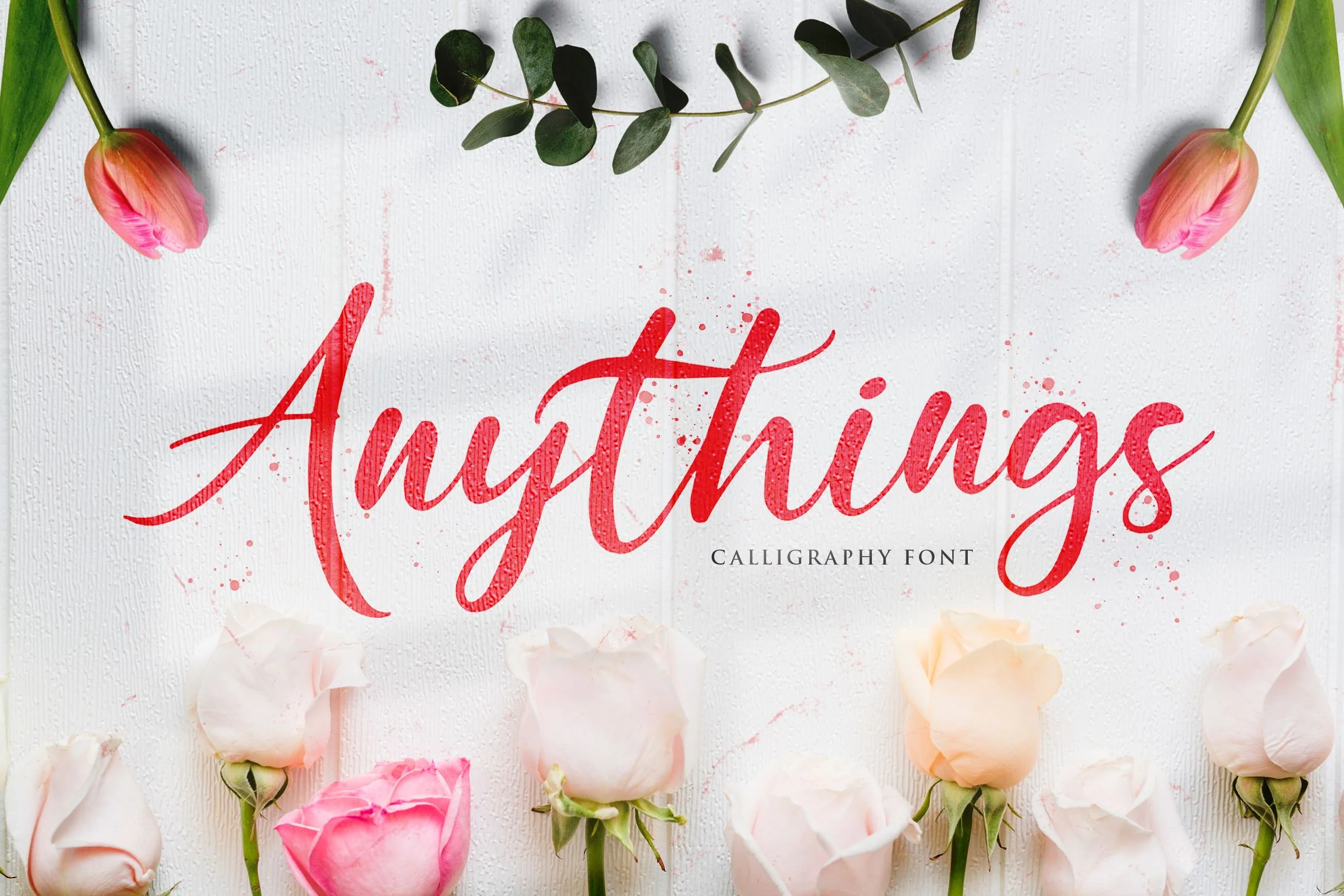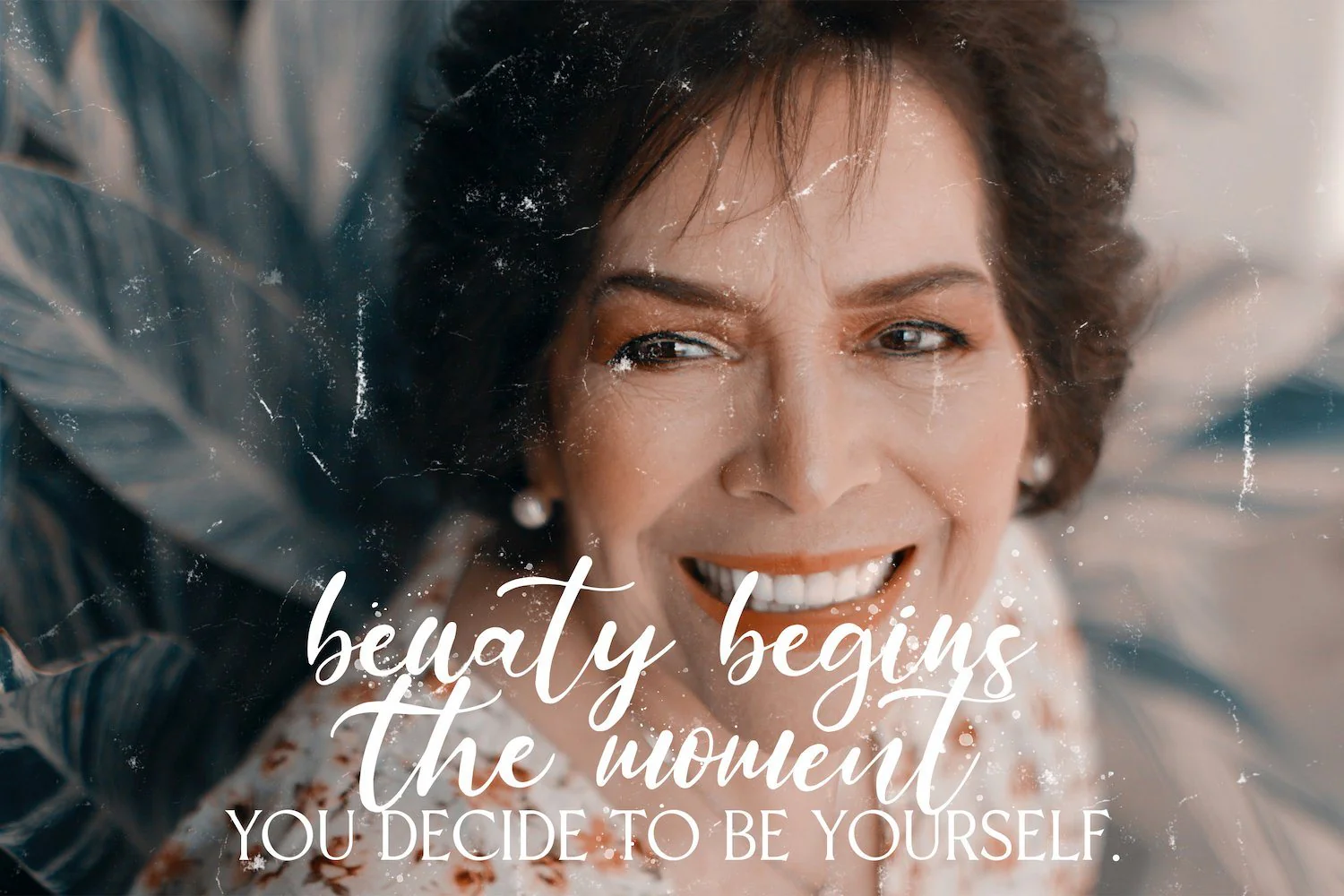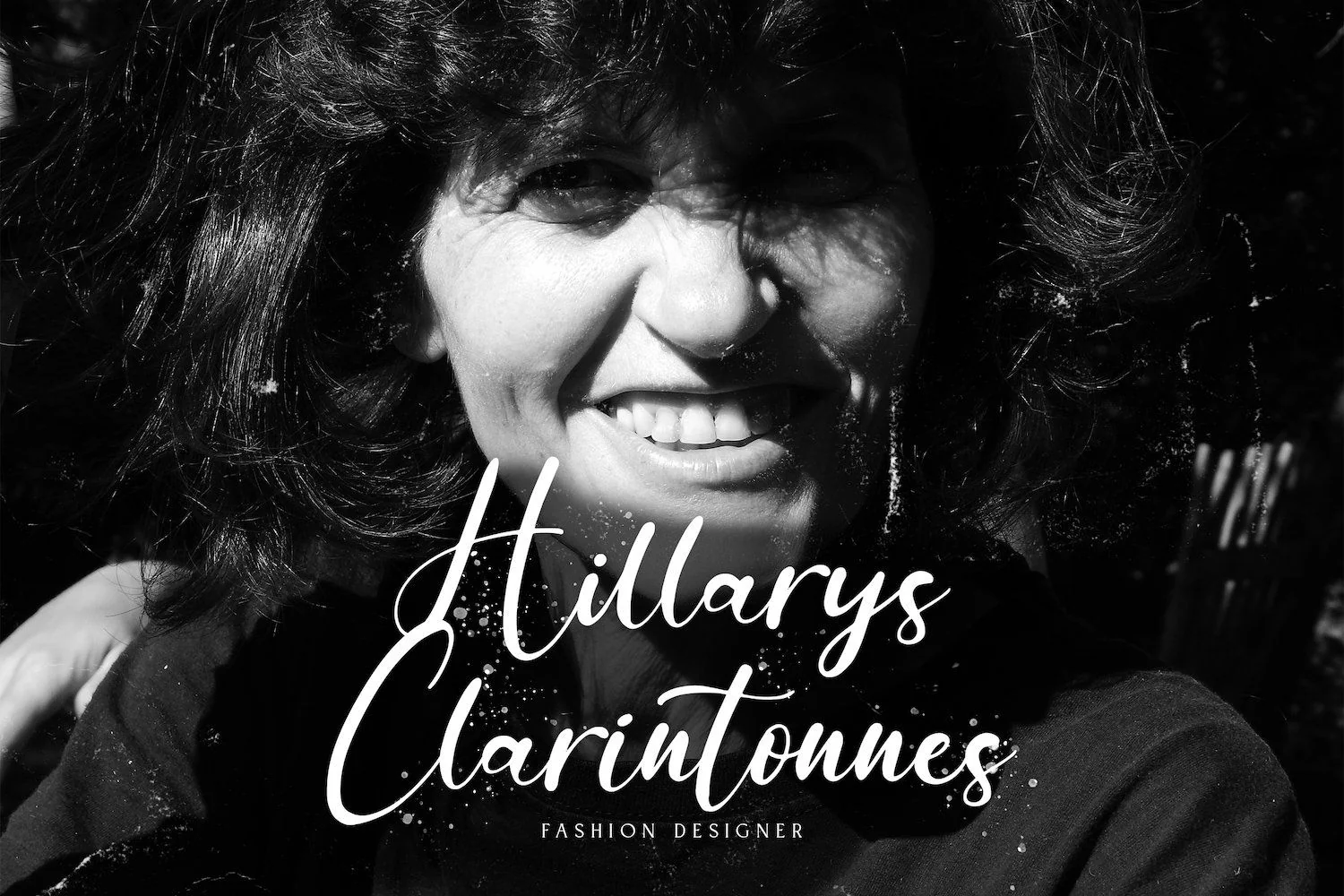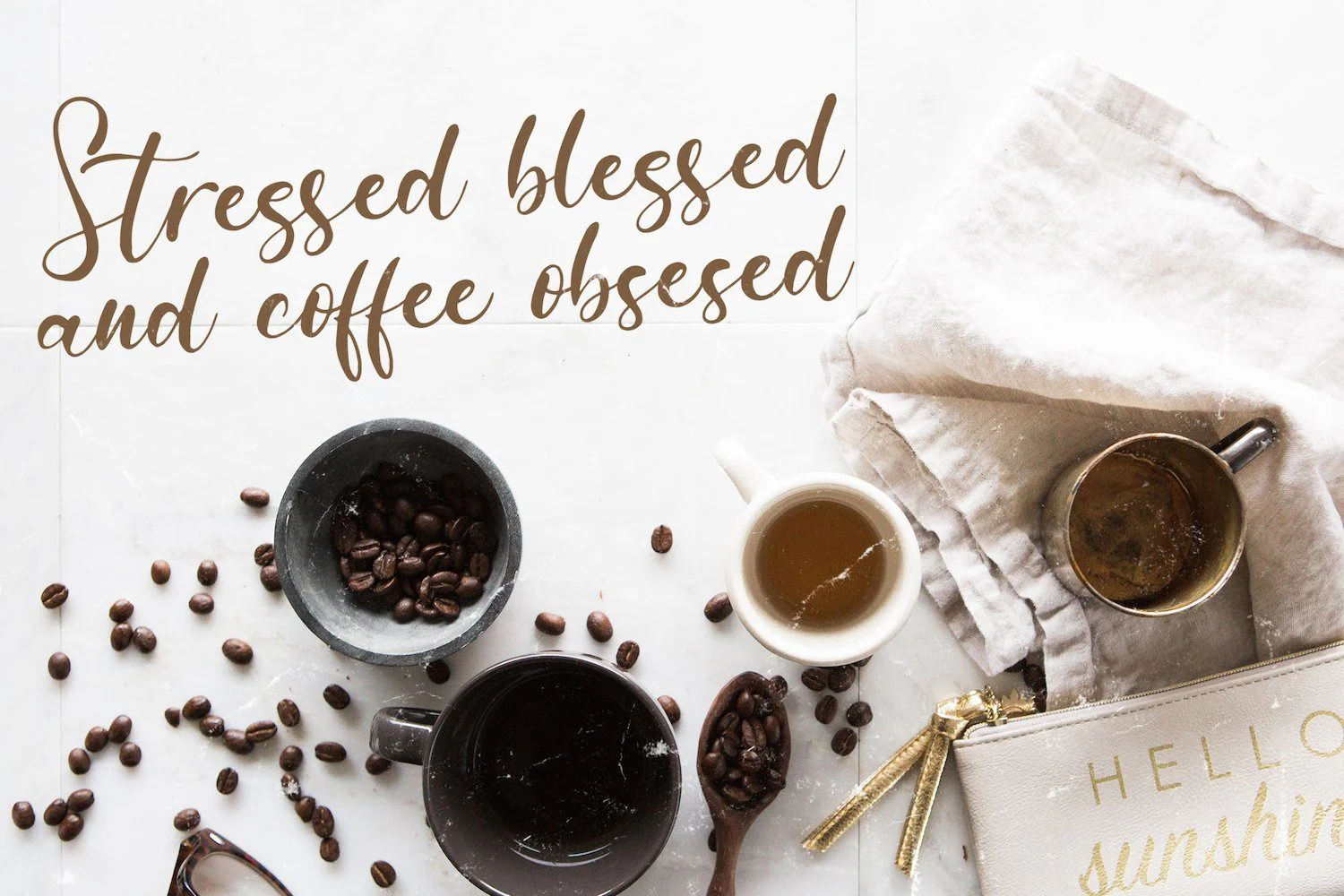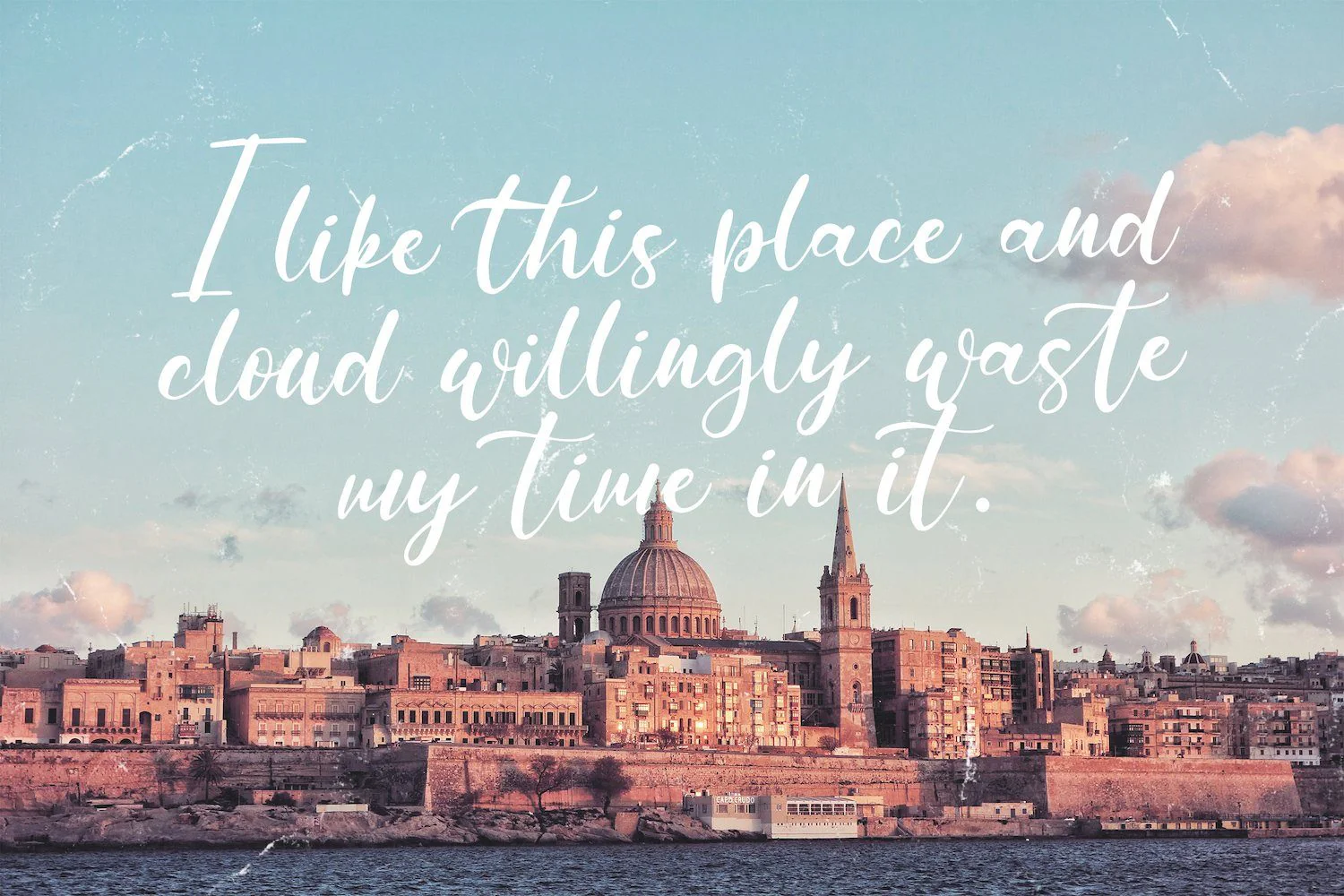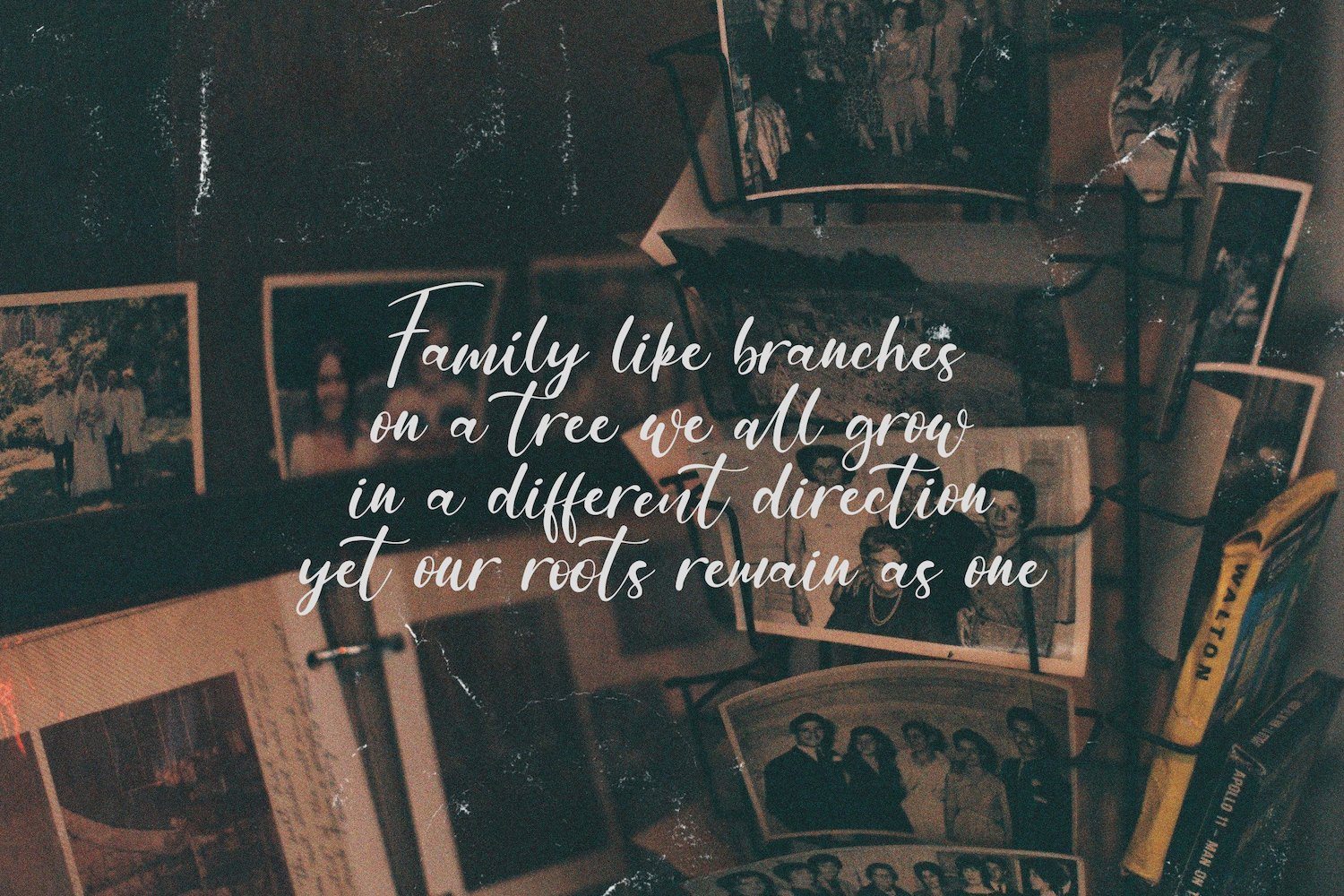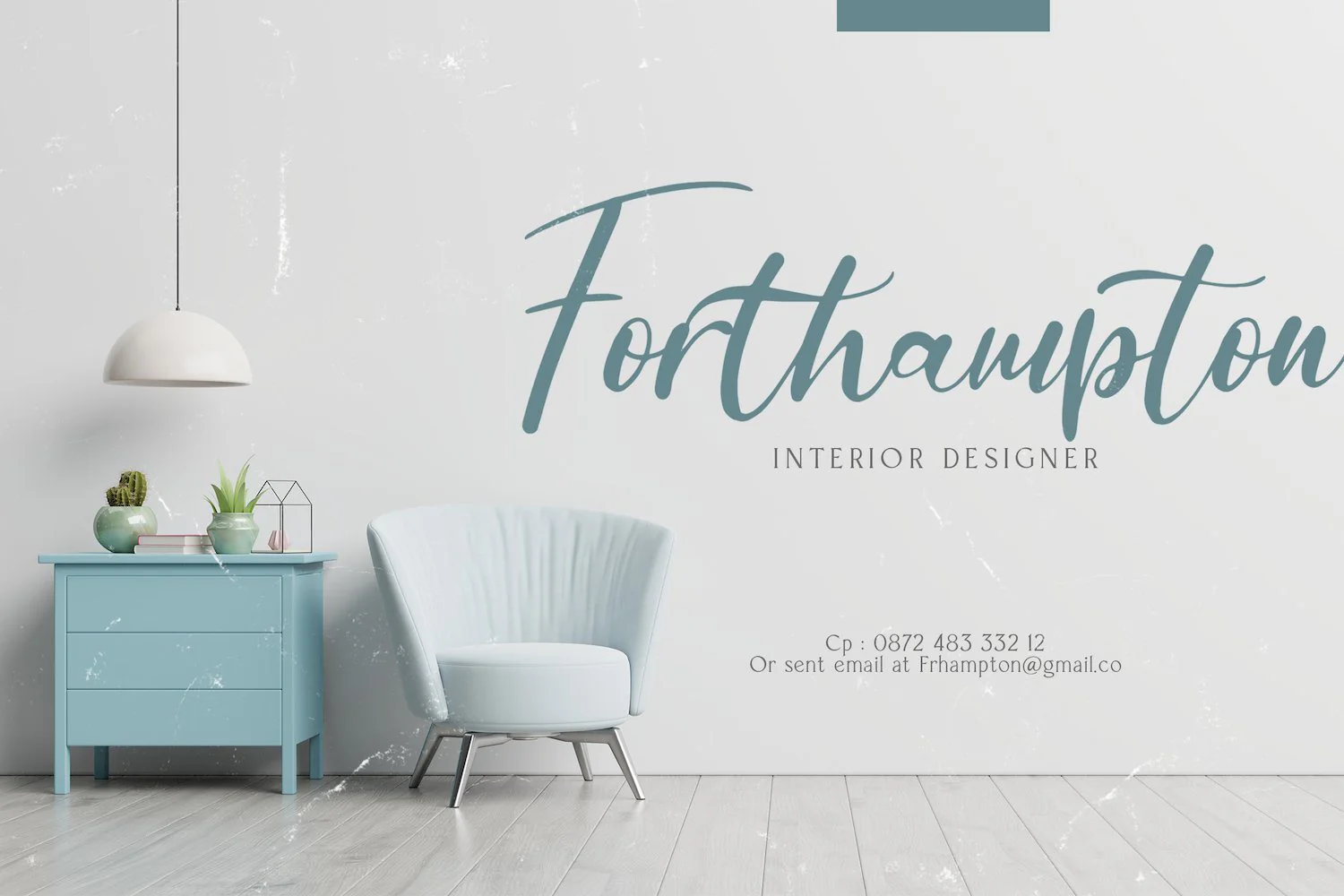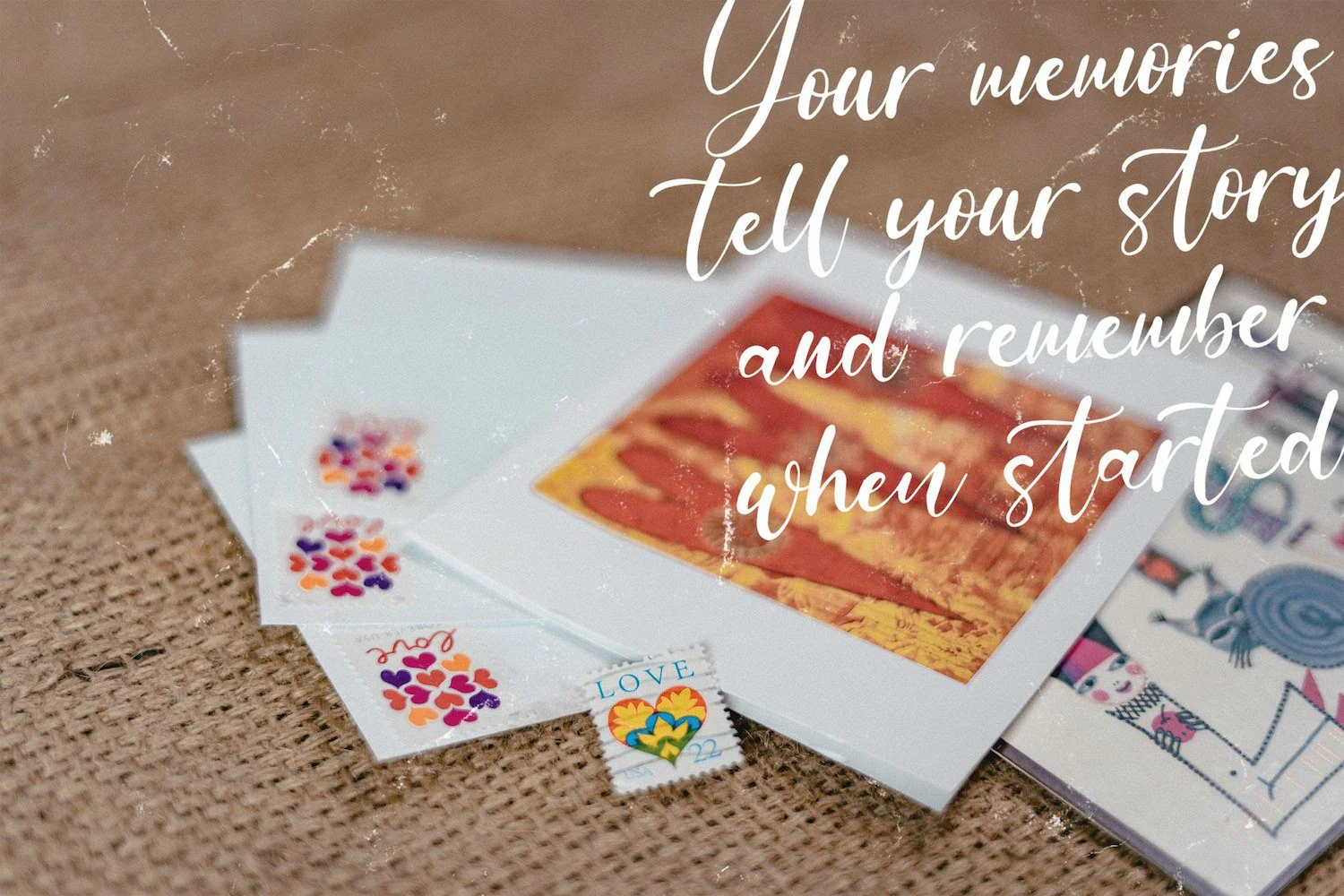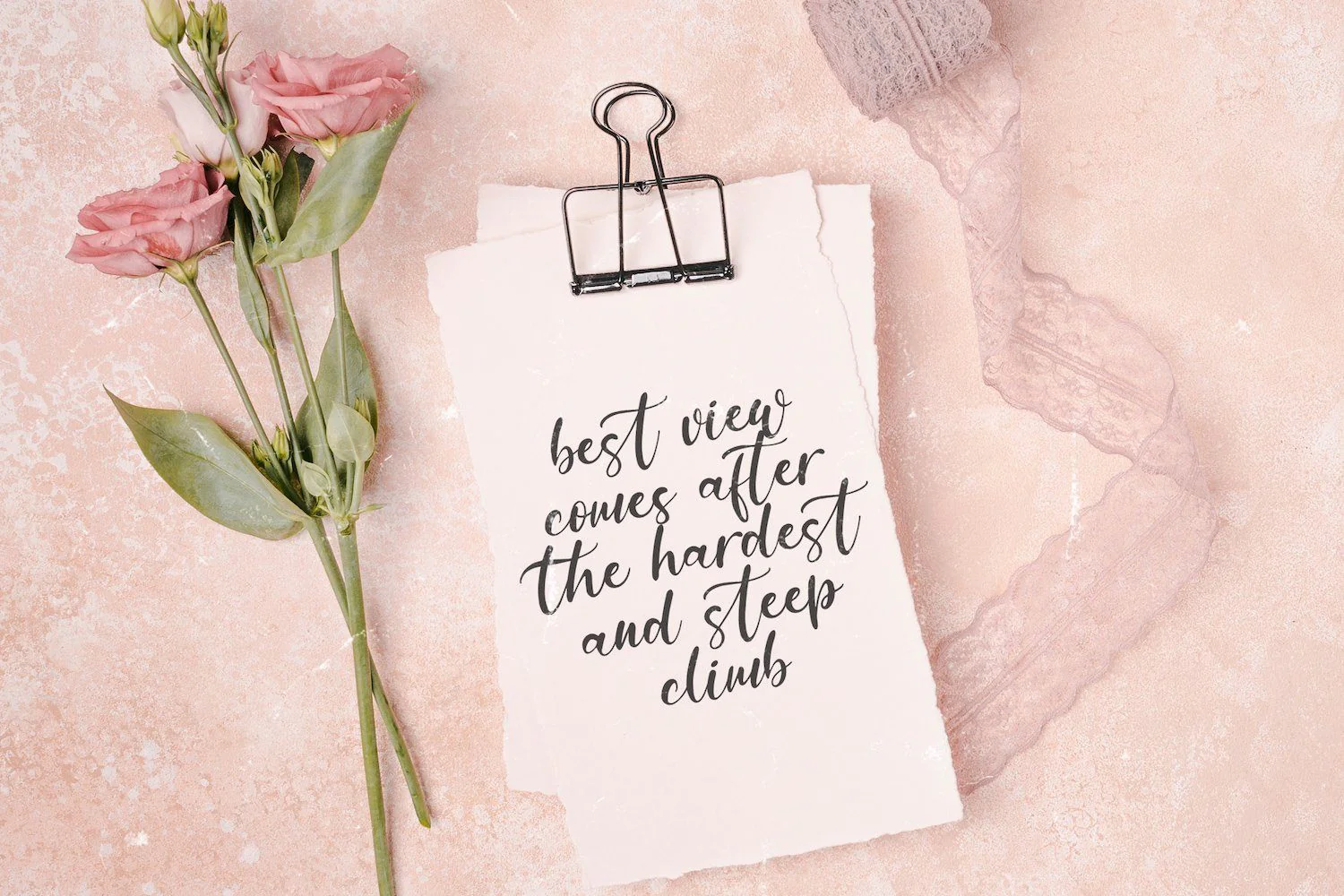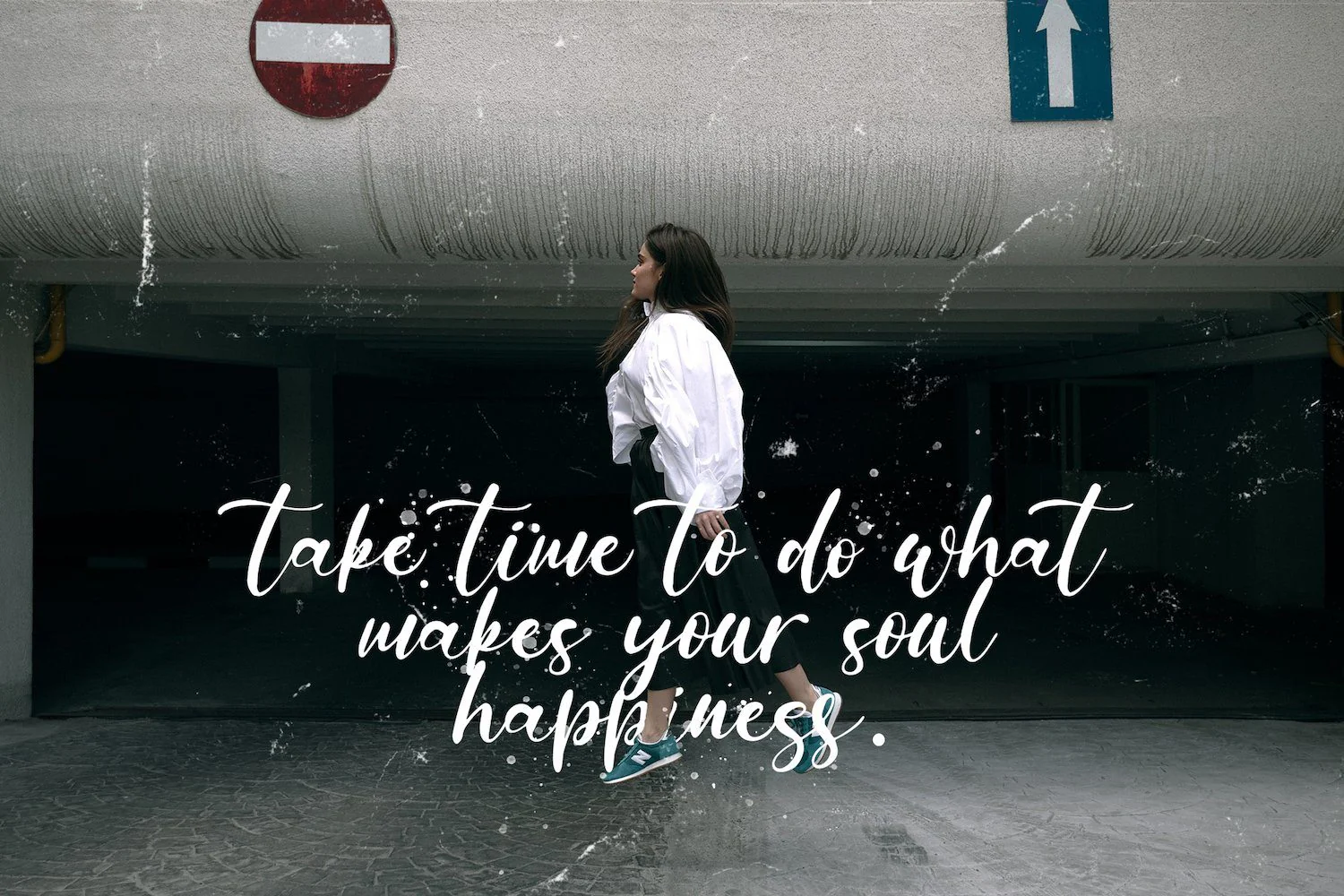
Anythings - Modern Calligraphy Font
Introducing Anythings - Modern Calligraphy Font
Anythings is an exquisite handwritten font, masterfully designed to become a true favorite. It maintains its classy calligraphic influences while feeling contemporary and fresh. Fall in love with it and bring your projects to the highest levels!
This font is PUA encoded which means you can access all of the glyphs and swashes with ease! It features a varying baseline, smooth lines, gorgeous glyphs and stunning alternates.